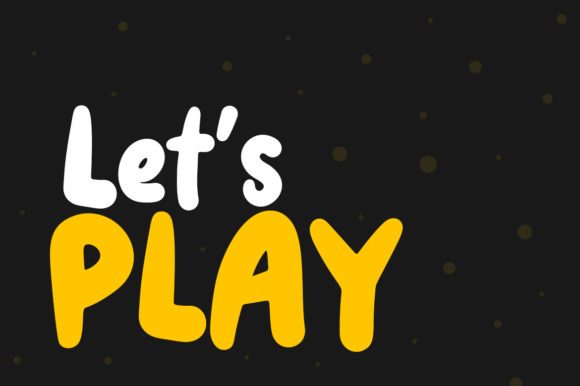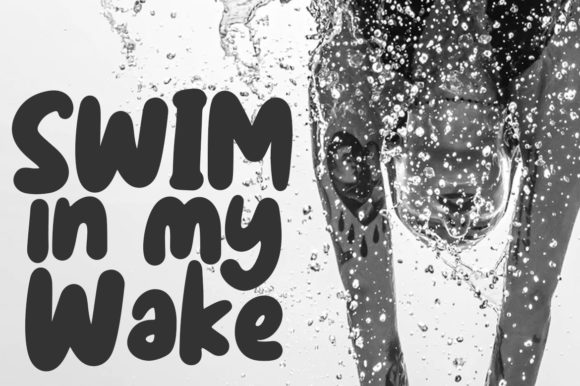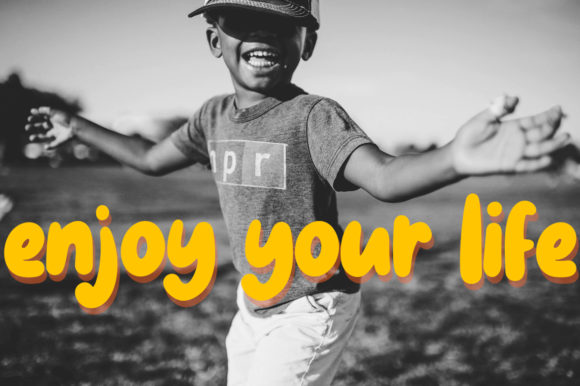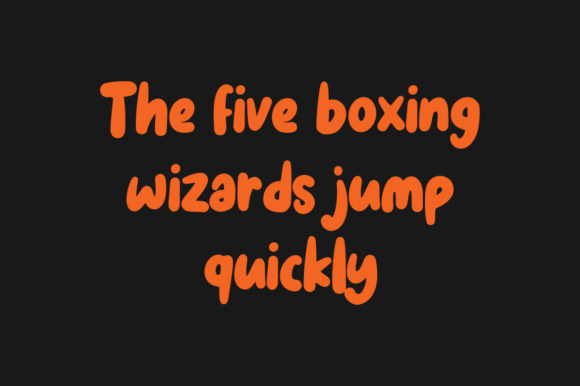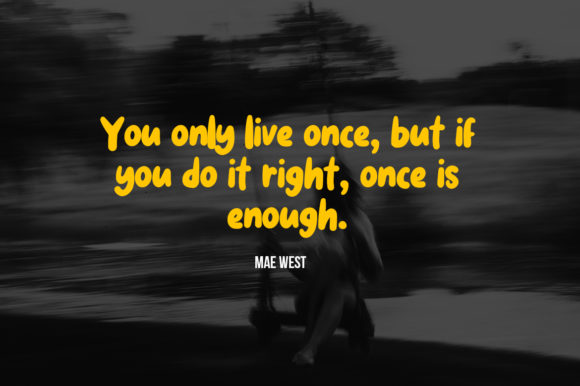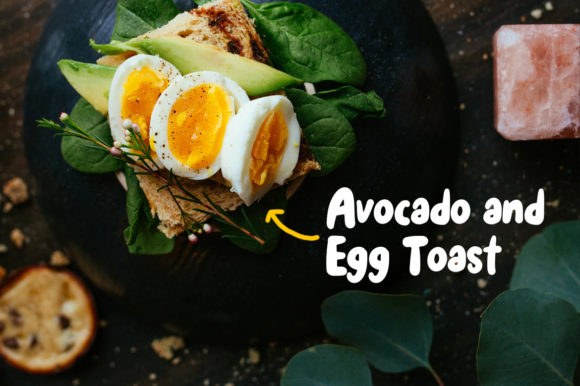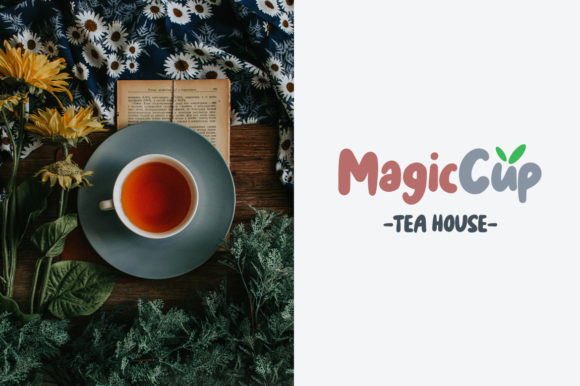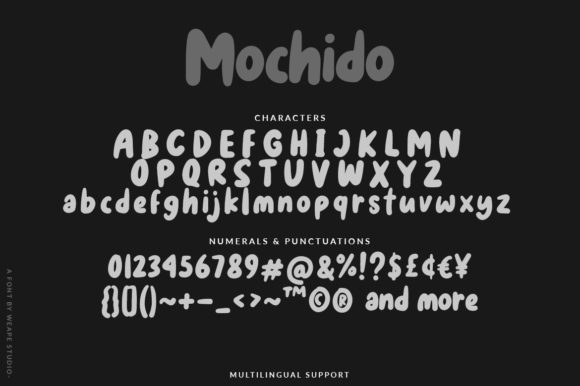
Mochido Font
About Mochido Font
Mochido is a bold, sweet and quirky handwritten font. Created with the help of an outstanding brush pen, this font is incredibly versatile, your most adept choice for any type of event!